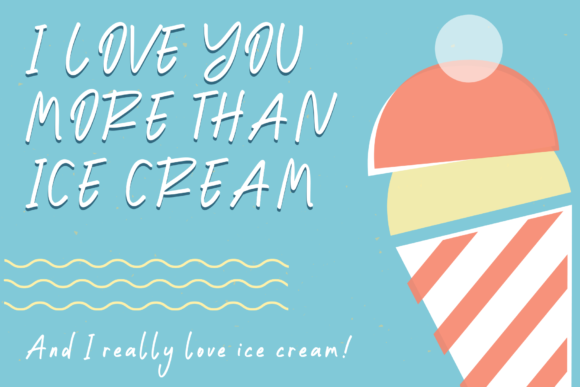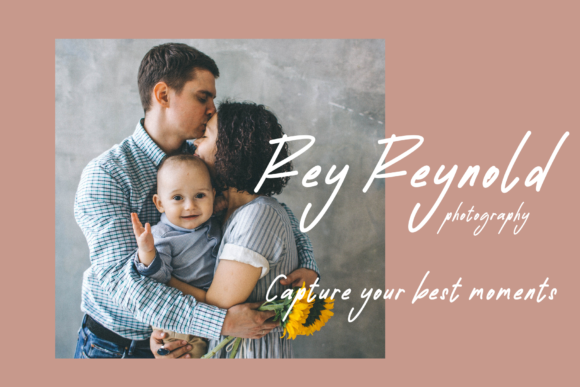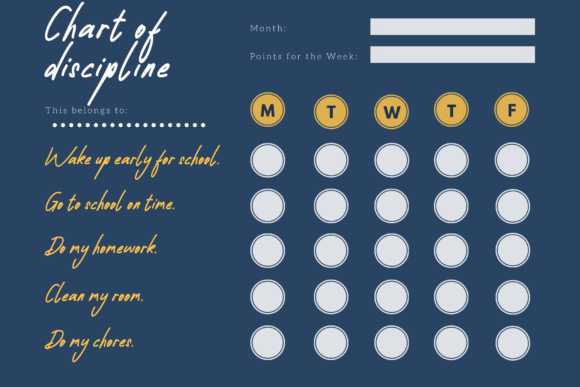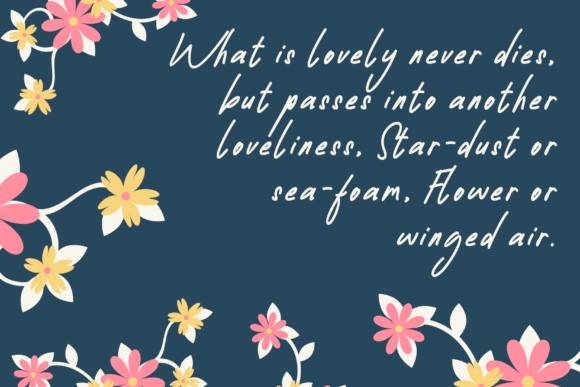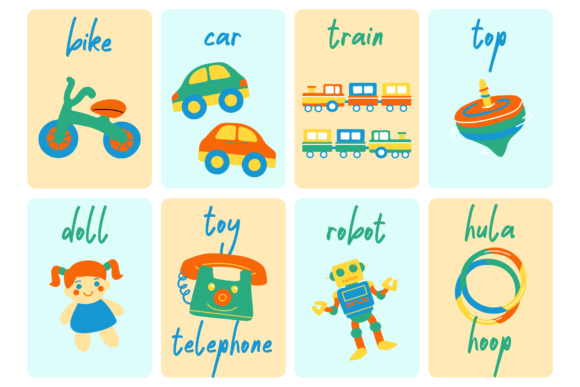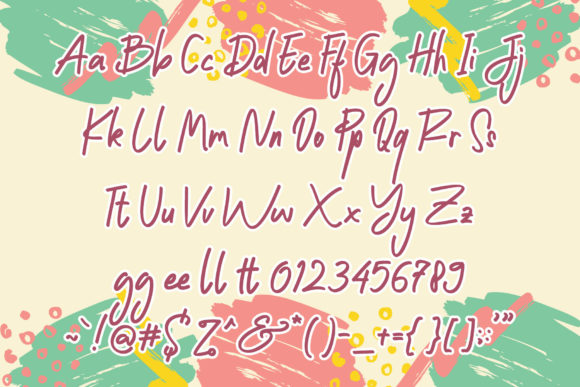
Robertto Font
About Robertto Font
Robertto is a cute, quirky and friendly handwritten font. It has a modern yet whimsical style and it will undoubtedly immerse your designs into a magical world.